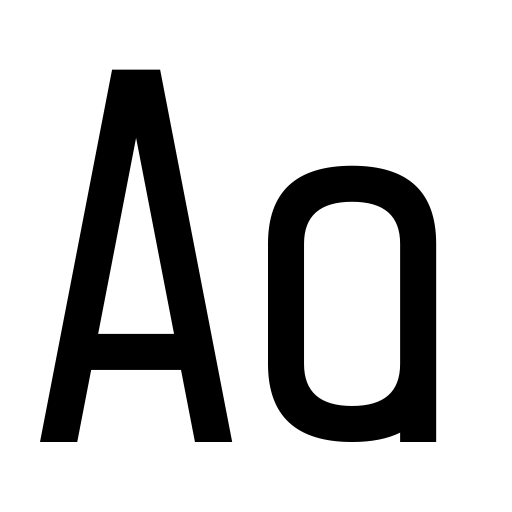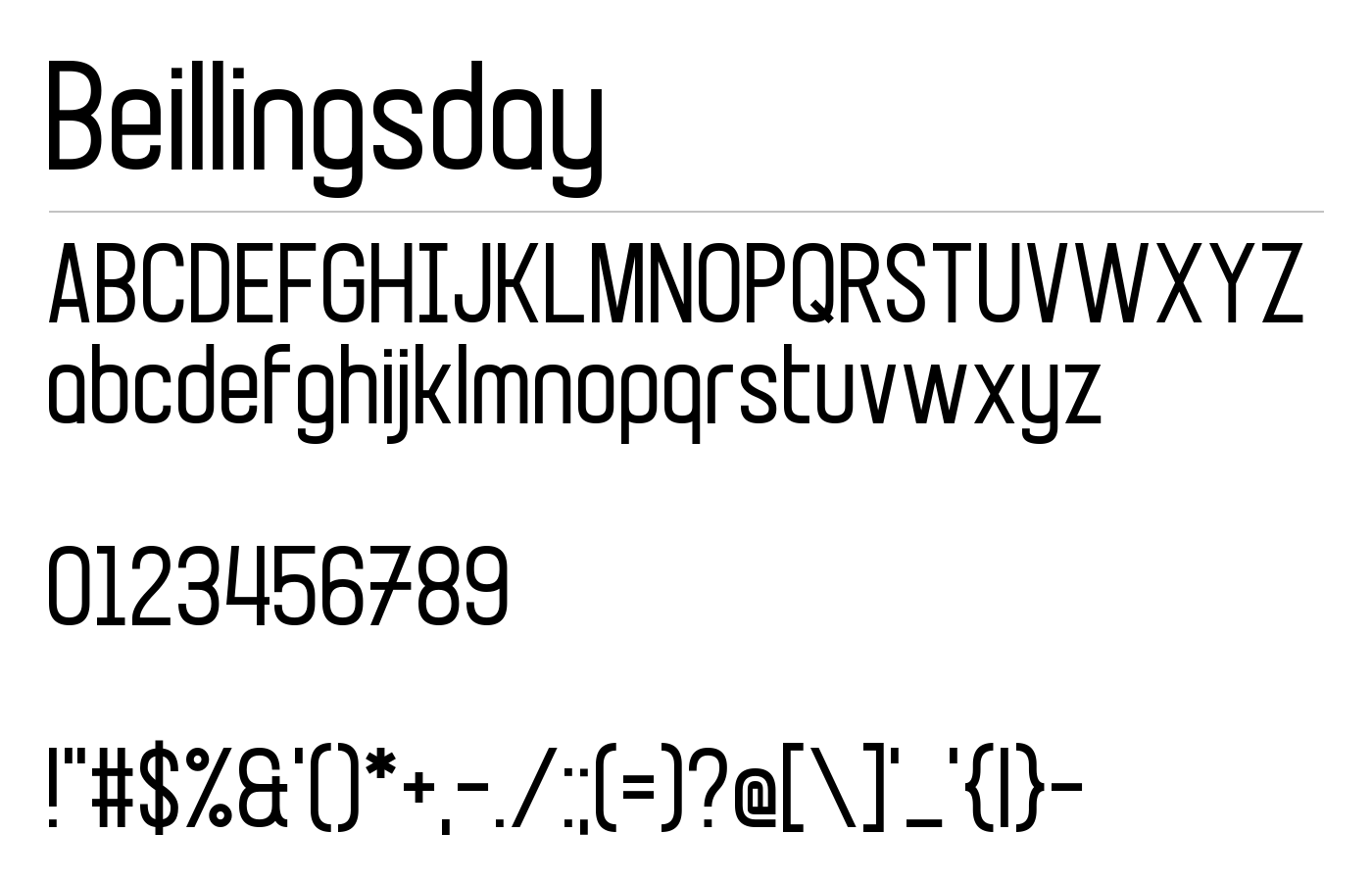
Beillingsday is a modern sans serif font characterized by its tall, narrow letterforms and clean, consistent stroke weight. Its condensed width and high x-height make it ideal for creating sleek, contemporary designs with a professional and streamlined appearance. This font works especially well for headlines, branding, and editorial layouts where space is limited but clarity and a modern vibe are essential.
Beillingsday Font
About Beillingsday Font
| Designer | NAL |